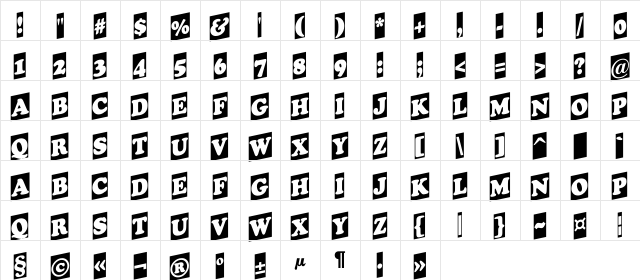
a_CooperBlackCmUp Regular Font Preview
a_CooperBlackCmUp Regular
a_CooperBlackCmUp Regular Font Details
Design Context for a_CooperBlackCmUp Typeface
a_CooperBlackCmUp offers clean, dependable letterforms without strong stylistic allegiance, making it a practical choice for designers who need flexibility.